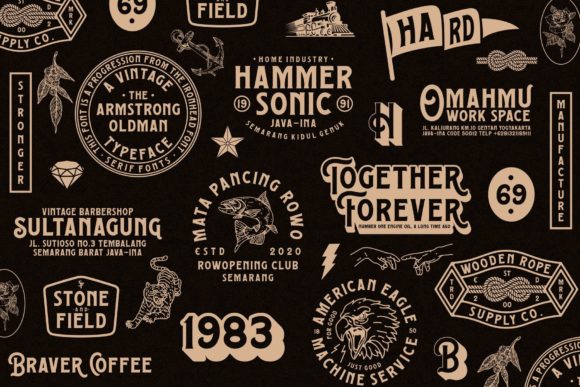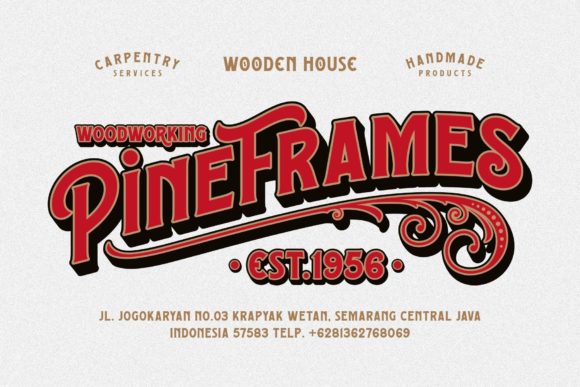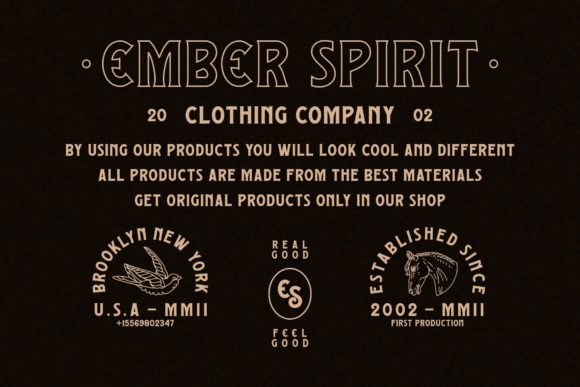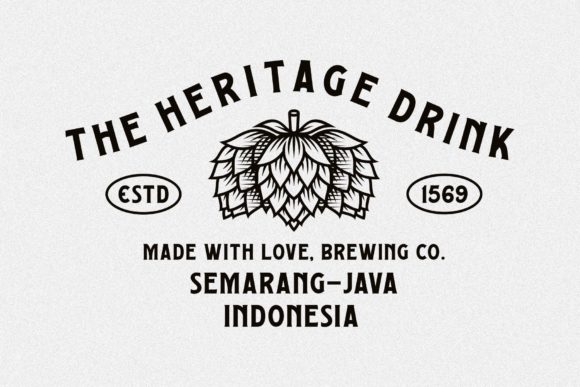
The Armstrong Oldman is a high-quality vintage typeface. This font will be perfect to incorporate into your designs, especially vintage designs. This font is suitable for logos, badges, clothing, posters, and more.
The Armstrong Oldman Font